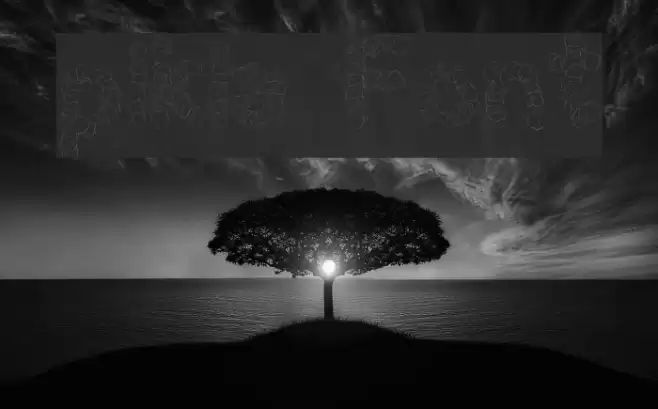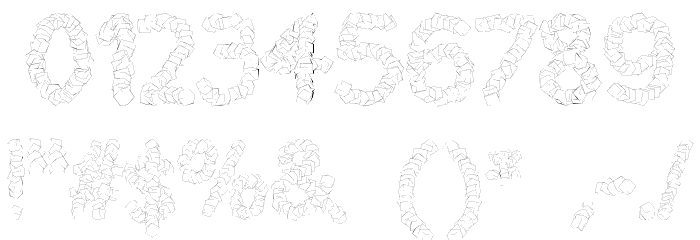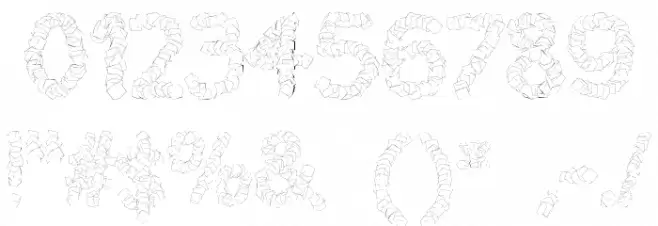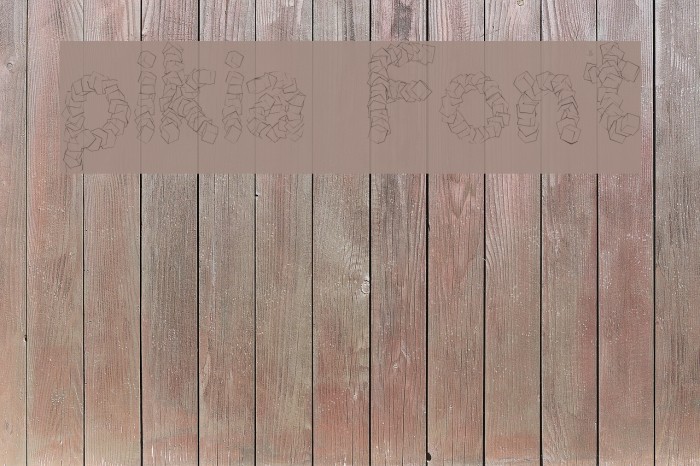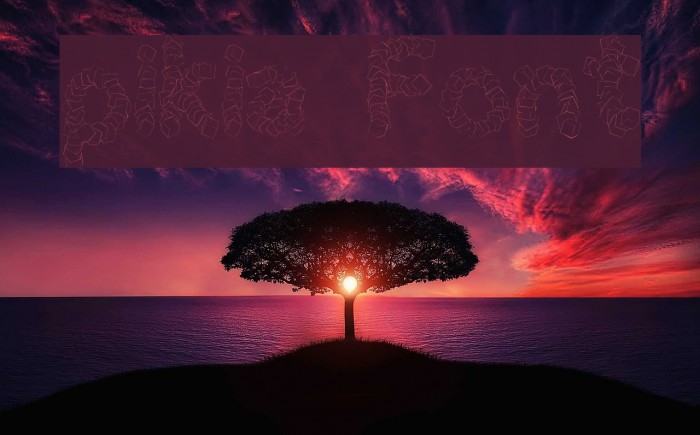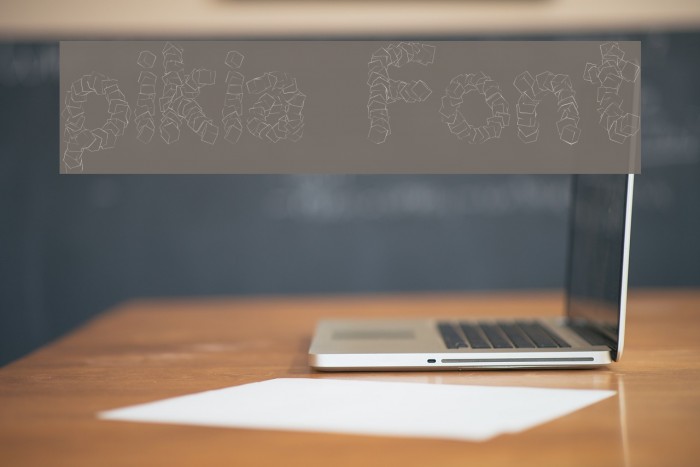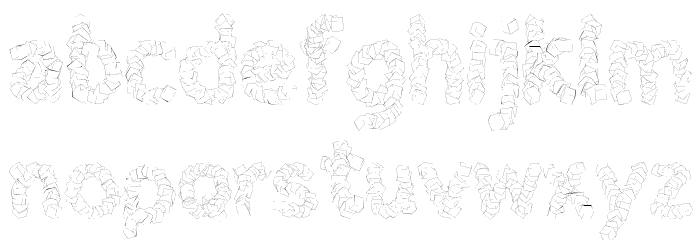
pikia Font
pikia Description
This font features a highly decorative and intricate design, with each character composed of a series of overlapping, textured shapes that create a sense of depth and complexity. The letters have a playful and whimsical appearance, making them stand out with their unique, almost hand-drawn quality. The overall effect is both artistic and eye-catching, suitable for creative projects that require a distinctive and memorable typeface. The characters maintain a consistent style throughout, with a balance between the bold outlines and the detailed interior patterns.
A decorative font with intricate, textured characters and a whimsical style from Decorative fonts.